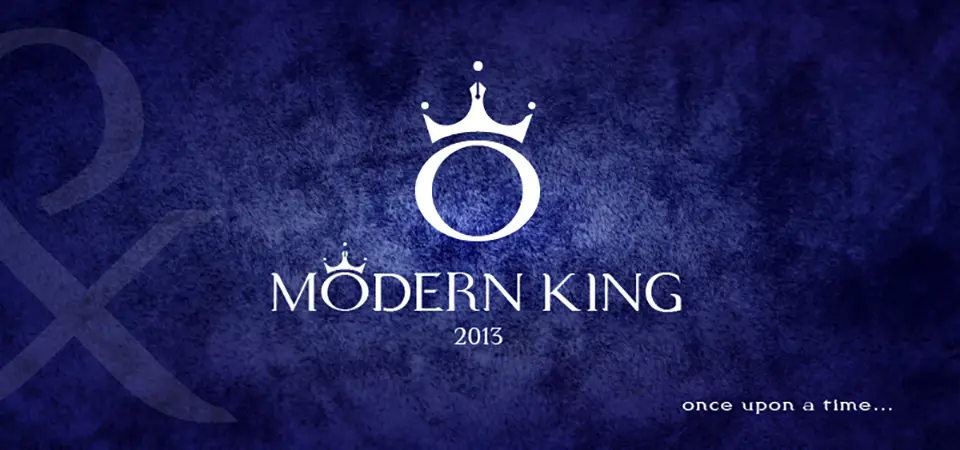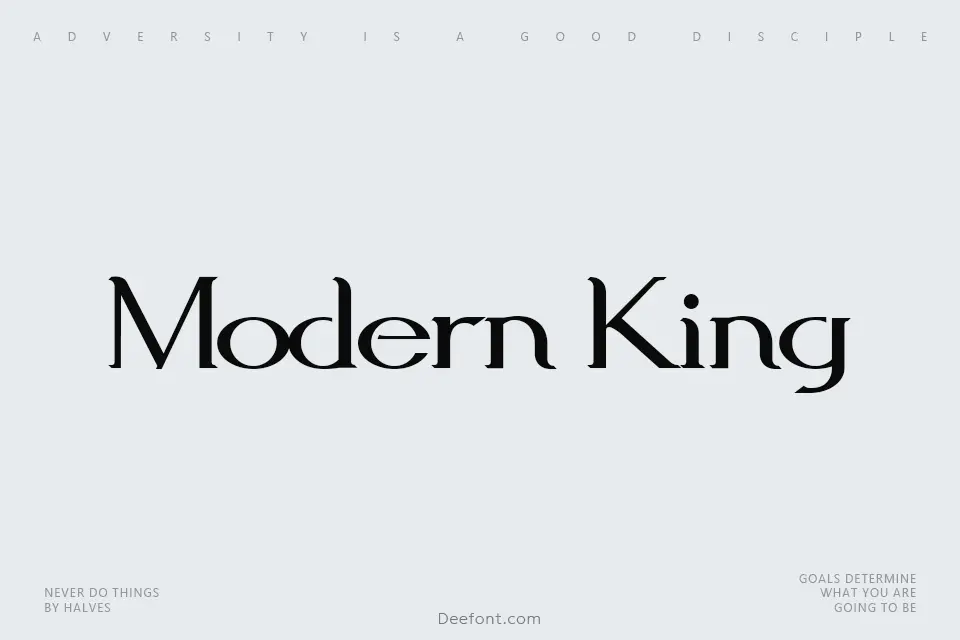
Modern King Font
Modern King Font was designed to be an elegant serif typeface, that carries all the characteristics of a classic printing press font, from posture, thick and thin, to readability. Yet, can imply a digital sharp edge, that seems to be made by a precise computer design. The large capitals can be used for elegant titles. The Small caps are great for small readable paragraphs.